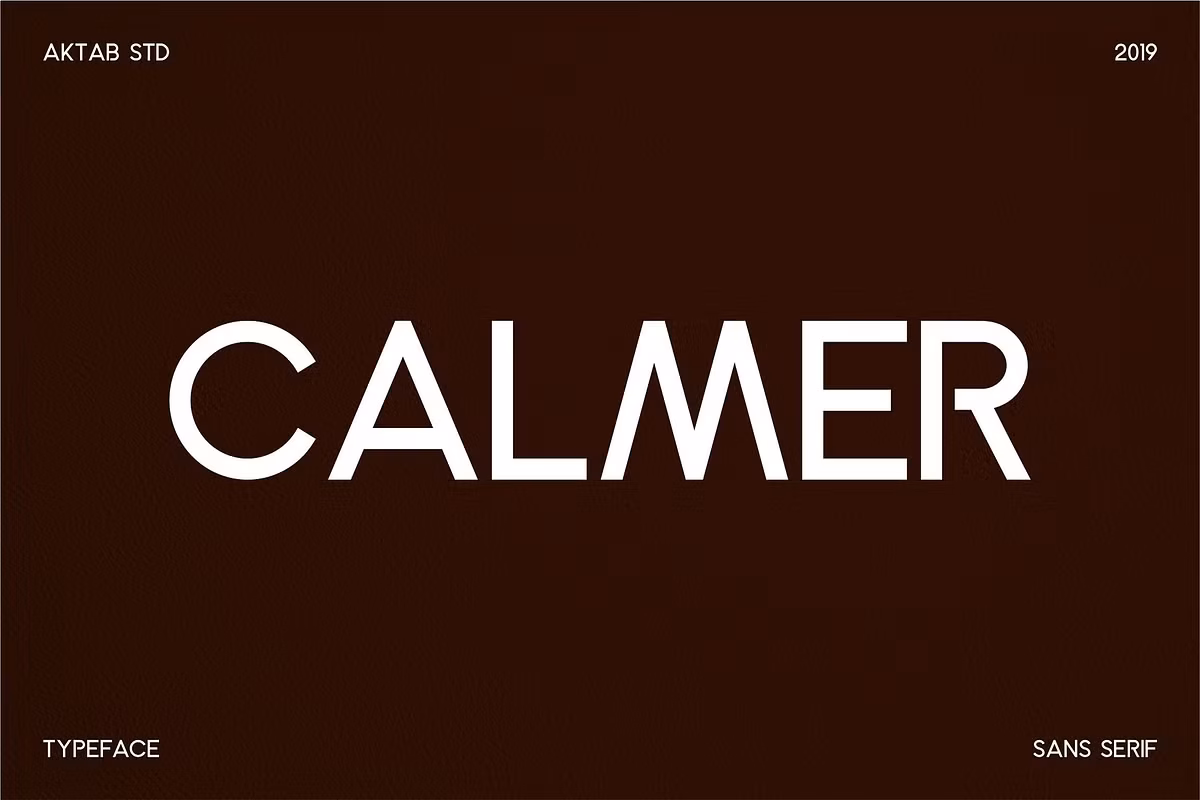
Calmer Font Family Free Download is a clean, modern, and highly legible typeface family designed to bring clarity and balance to your creative projects. Please note, you are required to purchase this font family for commercial use. It is available for free download for testing and personal projects only.
With multiple weights and styles, Calmer is perfect for branding, web design, editorial layouts, user interfaces, packaging, and minimalist marketing materials. Its smooth curves and refined letterforms make it both versatile and professional—ideal for designers who value form and function.